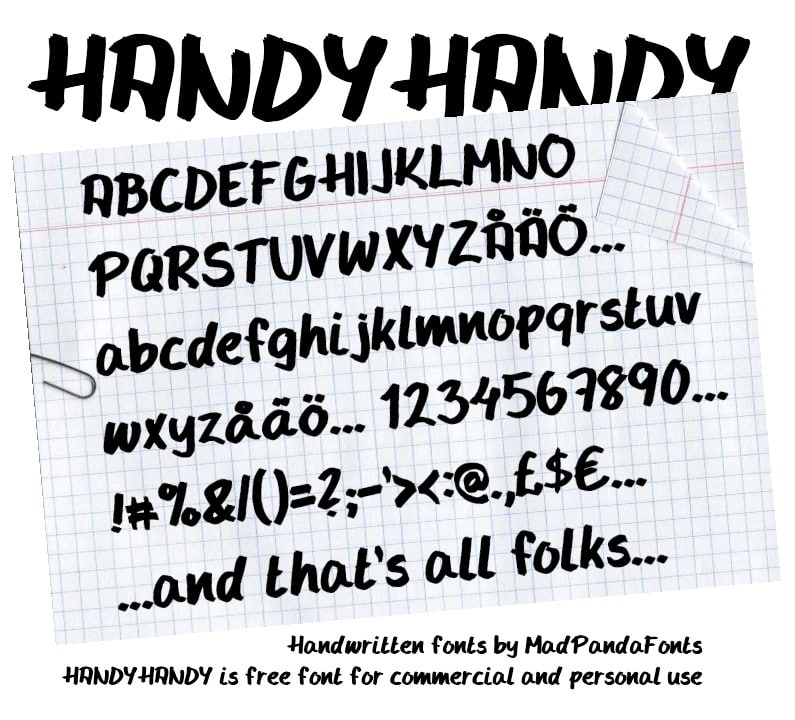
handy
Elevate Your Projects with Handy Font
Handy Font, created by John Smith in 2022, provides a unique blend of modern aesthetics and casual charm. Its playful design makes it perfect for a wide range of applications, including web design, logos, and print materials, allowing for a personal touch in any creative endeavor.
Key Features and Available Formats of Handy Font
The Inspiration Behind Handy Font
Handy Font draws inspiration from hand-lettered designs and casual scripts, giving it an approachable and friendly feel. John Smith meticulously crafted each character, focusing on readability and character, while maintaining an artistic flair that stands out in both digital and print formats.
Best Uses for Handy Font
Whether you’re designing a logo, creating eye-catching social media graphics, or crafting unique greeting cards, Handy Font excels in projects that require a sense of personality and creativity. Its easy-going style resonates well with both businesses and individual projects, making it an essential addition to any designer’s toolkit.